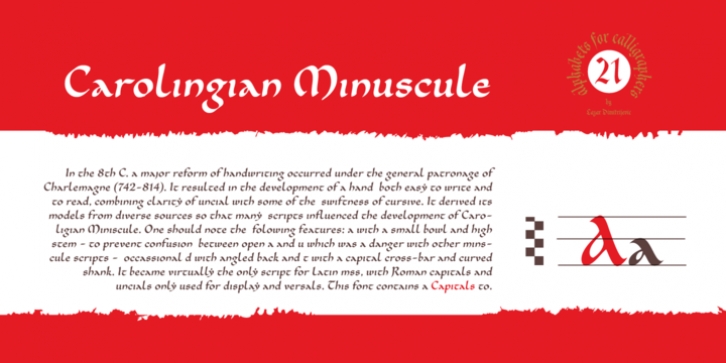
Calligrapher Carolingian Minuscule Font is one of the calligraphic group of fonts called “21 alphabets for Calligraphers“.
All graphemes are taken from calligraphic pages written in traditional Carolingian Minuscule calligraphic style. This font is ideal for calligraphic sketches or for imitation of ancient manuscripts. It contains all the Latin glyphs.